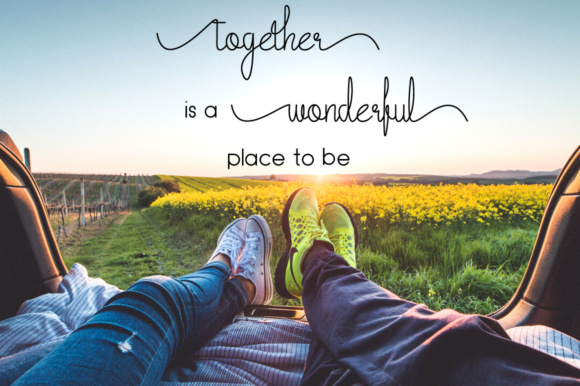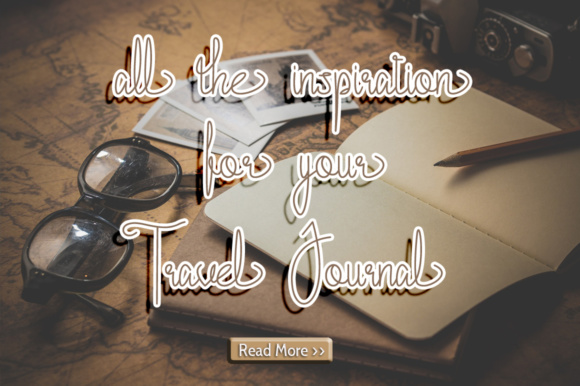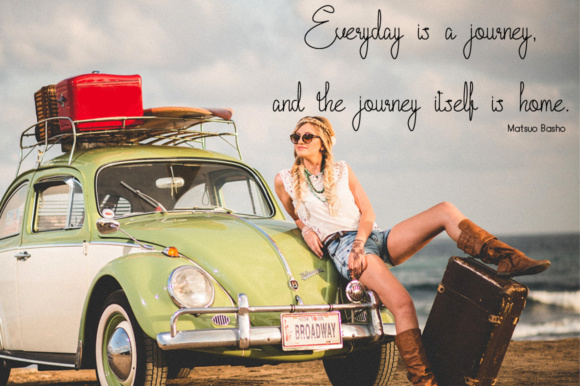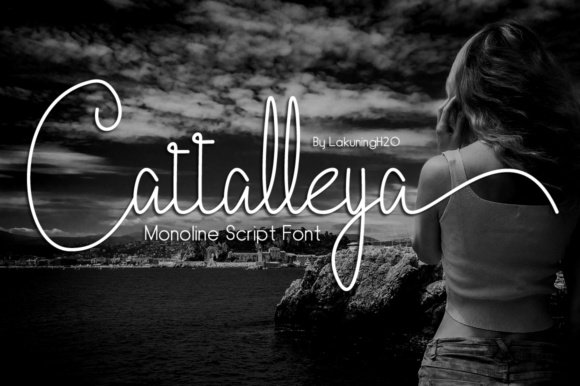
Introduction to Cattalleya Font
Cattalleya is a handwritten script font in a monoline style, with a fine line curve and three options of stylistic alternate make this font suitable for a wide range of project types and display applications.
This is a modern font that works well in a ton of designs .
Key Features of Cattalleya Font
Why Choose Cattalleya Font?
Cattalleya Font offers exceptional quality and versatility, making it a valuable addition to your design toolkit. Whether you’re creating for personal projects or commercial use, Cattalleya Font delivers professional results.